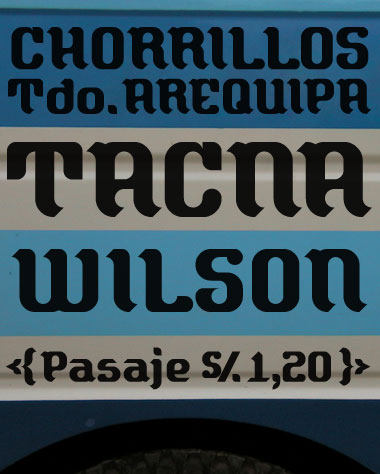
• Combis (or Micros) are really small vans used as local Transport in Lima, my hometown.
They have a wide range of scripts that are manually painted to the sides to indicate the main streets or avenues the route includes.
Styles vary from combi to combi, even in the same company, as I believe they hire different letterers for the job.
I'm working on a little project to make some of them into a font set called Combi Stylus & I created a flickr set to show my inspiration sources.
This one is my FontStruct version for the set & it needs a lot of kerning, but well...
A brand new font that oozes quality. Despite the small grid it has delicate features and smart solutions. The spacing, tracking may be a bit too generous, but I know the limitations you face with small fontstructions. The K and X are too similar. Full extended set with some really nice pieces (eg.: dagger). Congratulations. 10/10
I was so busy with other details that I forgot to worry about the X.
I see what I can do to solve the issue.
PS I just made a minor change to accentuate the Xs waist. Not perfect, but better.
Great flickr set. Thanks for showing your inspiration. I think you've captured the spirit of the hand lettering marvelously.
Very cute curves...
...which sounds like such a wrong way to describe a font.
A great set, based on an interesting inspiration. 10/10
very flavorful :)
Very clean handwritten style. I think it adds a lot of depth when you include cultural relativity with a creative work. Thanks for sharing your culture as well as your font. Greetings to you in Peru, cayo!
Thank you, Gene. It´s quite ironic when one is a sans serif grotesque kind of guy; Boy, I loved my childhood exchange programm to the Bundesrepublik where helvetica rules the transport system, but here I'm exposed to this. So I think I have grown it in me to start liking it. :)
BTW I just remapped everything to match a better tracking, but still some glyph pairing might require individual kerning.
Maravilloso! It's quite hard to bring something new on such a small grid, but you did it... And almost none of the 198 (respect!) characters looks like it was just "the only possible solution to complete the set".
really like your typeface and your inspiration set gives inspiration !
"Almost none" :D
Beautiful font! This was the only one that poped out on the page.